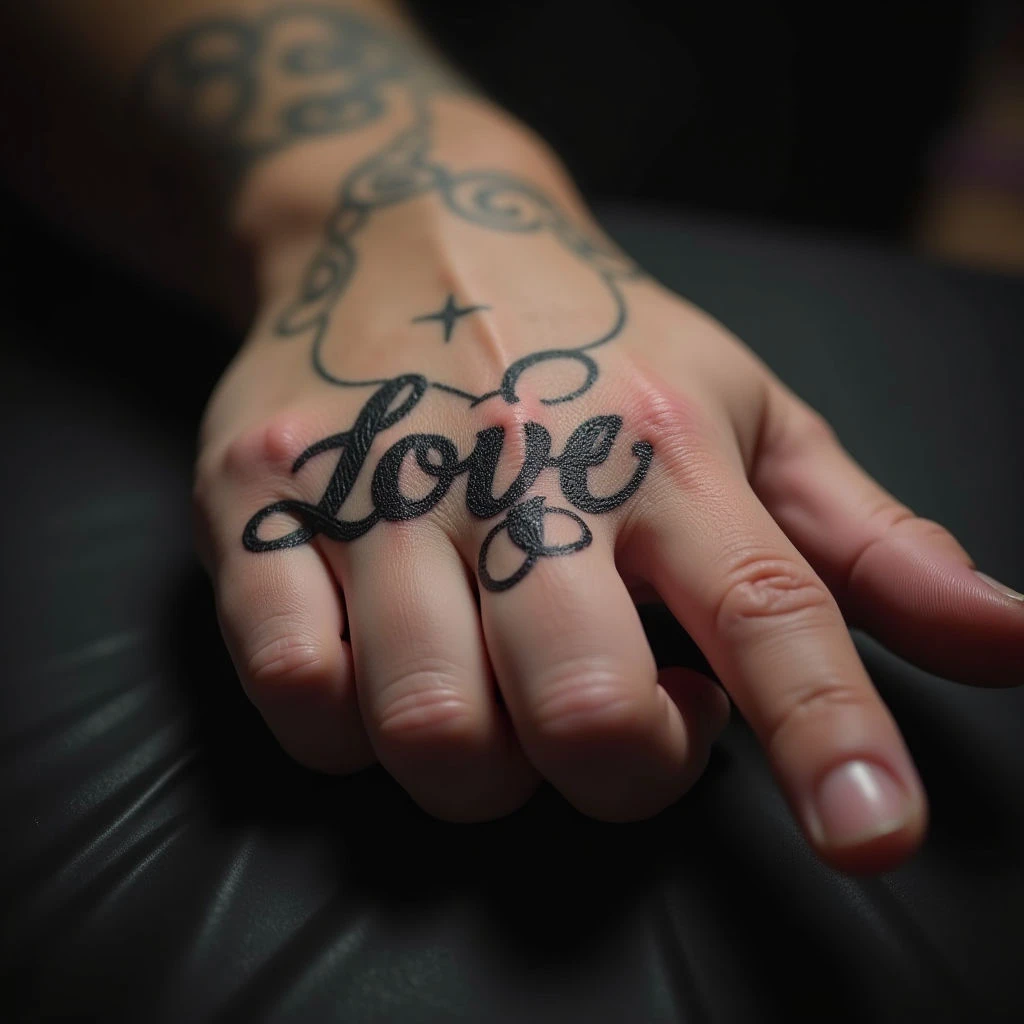
Name tattoos are a really common choice for men—a way to honor someone special or represent something important. This guide walks you through design ideas, fonts, placement options, and what to think about when creating your own personalized hand tattoo.
Finding the Right Font
The font you pick makes a huge difference in how the tattoo looks. Here are some ideas to get you started:
Script Fonts
These fonts have a flowing, elegant feel—great for romantic or sentimental designs. Just be sure to choose one that’s easy to read. -
Roman/Serif Fonts
Classic and timeless, these work well for a more formal or traditional look. -
Minimalist Sans-Serif Fonts
Clean and modern—a good choice if you want something subtle but impactful. -
Bold Block Letters
These convey strength and resilience, perfect for a masculine statement.